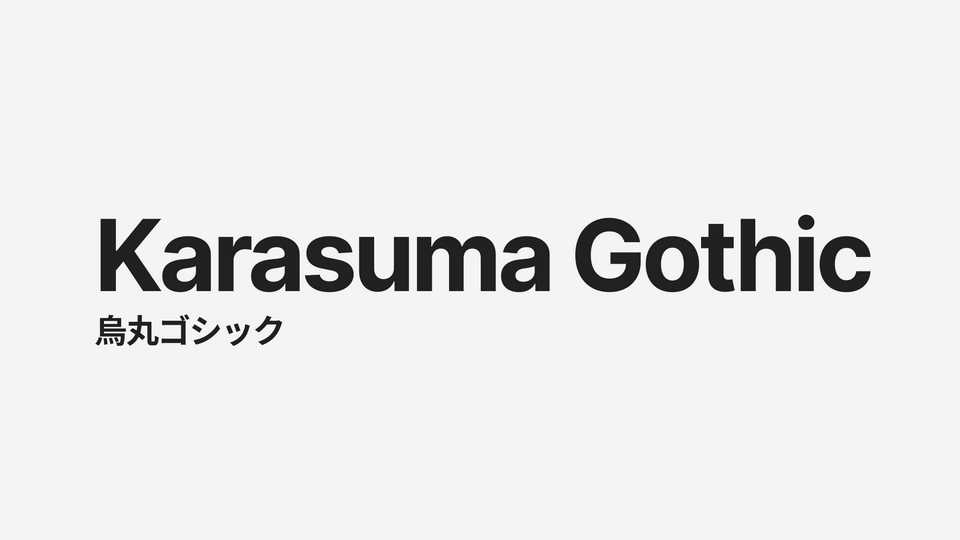
Download Karasuma Gothic typeface, a sans serif font family in six weights and Italics, optimized for displays and printed materials. Karasuma Gothic based on the Inter and Kinto typefaces.